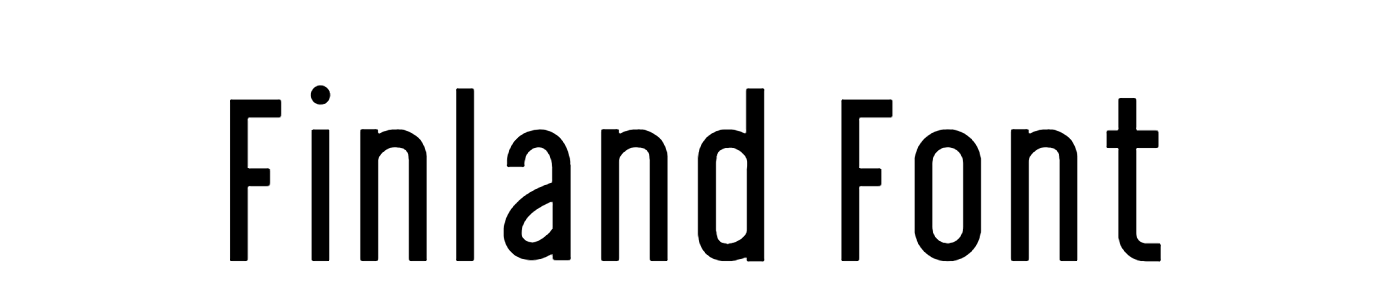
Finland
Finland is a sans serif font made by Craft Supply Co (2018). Simple, open letter shapes keep it easy to read at almost any size, from app buttons to big headlines. The free download includes six styles, and you can try every one of them with your own text in the preview above.
- Designer: Craft Supply Co
- Font styles: 6 (Regular, Thin, Thin Italic, Bold, Bold Italic and Italic)
- Weights: Light (300) to Bold (700)
- Glyphs: 223 in the Regular style
- Extra characters: 12 copy-and-paste alternates (Private Use Area)
What You Can Type With Finland
Finland covers the full alphabet in upper and lowercase, plus all ten numbers, so you can set names, dates and prices without switching fonts. Common punctuation such as &, !, ? and @ is included as well. It also has the accented letters you need for Spanish, French, German, Portuguese and Italian.
Where Finland Works Best
Designers usually reach for fonts like Finland when they're making websites, app screens and clean logos. Its lowercase letters are tall compared to the capitals, which keeps it readable at smaller sizes. It works for headings and body text alike. If the download has several weights, use a heavier one for titles and a lighter one for paragraphs. Because the family has more than one style, you can mix them in a single design for headings, subheadings and highlights.
Who designed Finland font?
Finland was designed by Craft Supply Co. The copyright line inside the font is dated 2018. DafontStyle has 13 more fonts by Craft Supply Co, and a few are linked above.
Does Finland support accented letters?
Yes. Finland includes the accented letters needed for Spanish, French, German, Portuguese and Italian, so it works for more than just English.